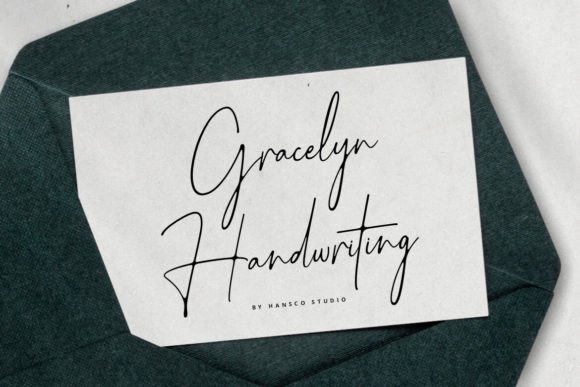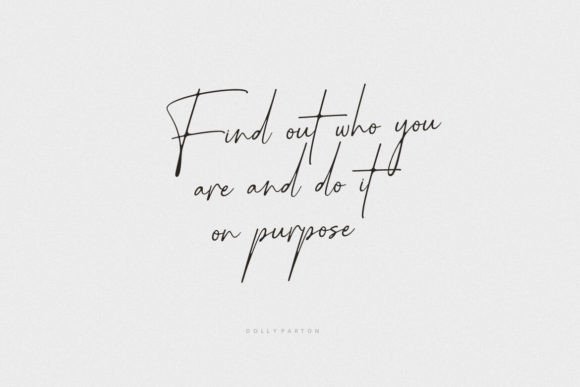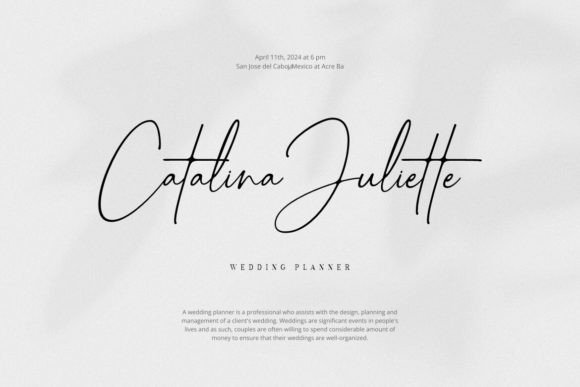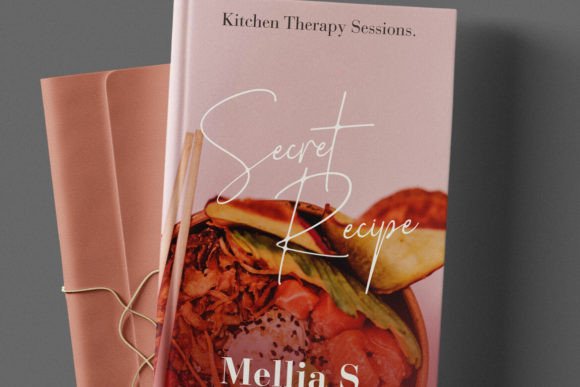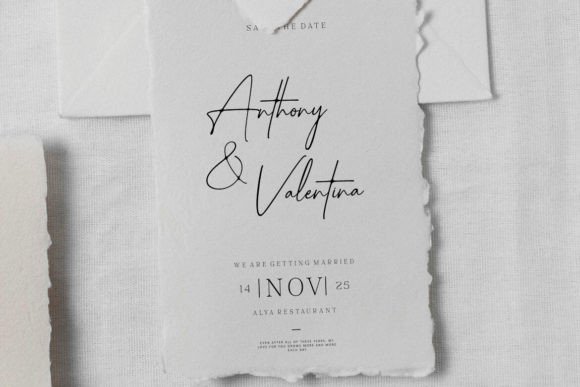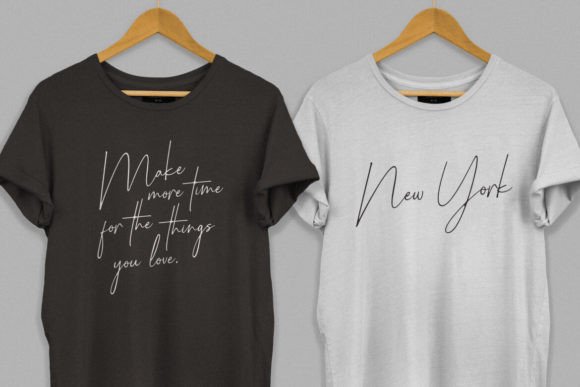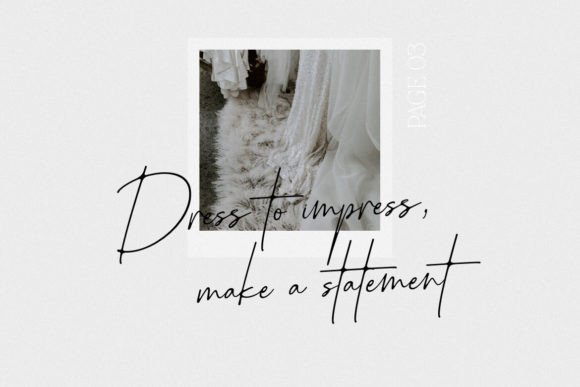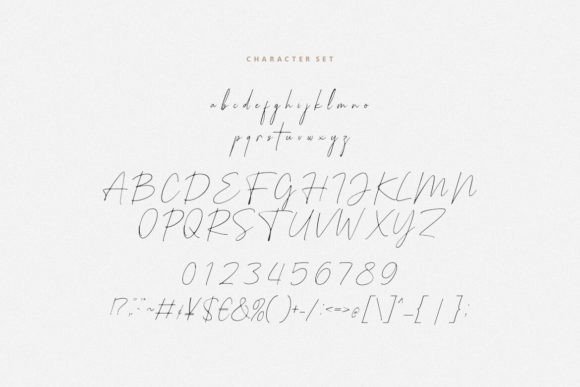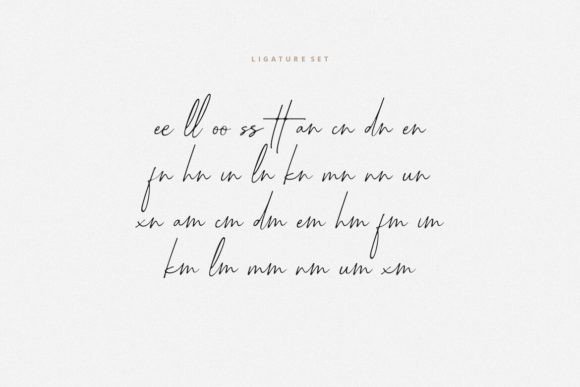
Gracelyn Handwriting Font
Gracelyn Font is a modern, casually and feminine handwritten font. Some projects that are suitable for this font include quotes, menus, taglines, flyers, posters, invitations, greeting cards, posters, business cards, clothing, letters, stationery and many others. Comes with a full uppercase, lowercase, numbers, punctuation, ligature character and with extensive language support, it’s going to be a very usable addition to your project.